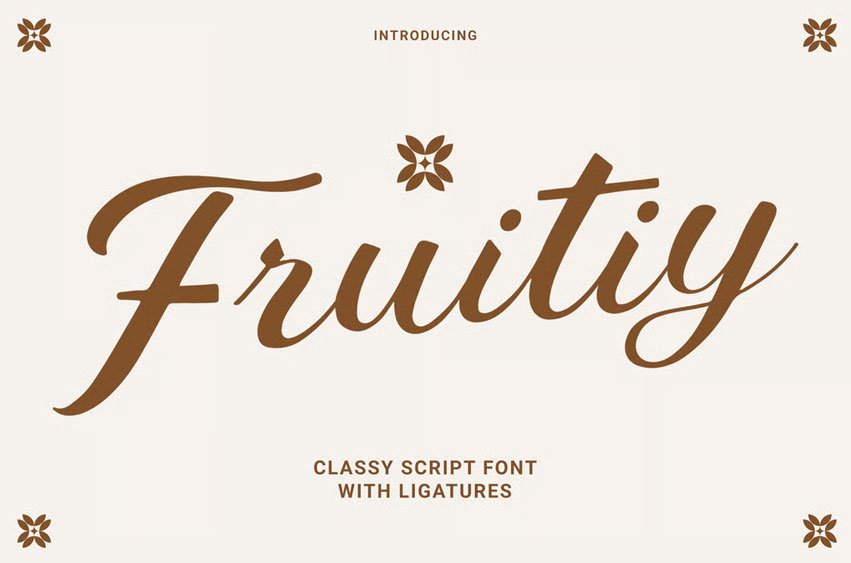
Fruity Font is a flowing script typeface with smooth curves and connected letterforms. It is ideal for use in branding, packaging, invitations, quotes, and social media graphics. This font features contextual alternates and ligatures that enhance its natural handwritten style. Fruity includes uppercase and lowercase letters, punctuation, numerals, and multilingual support.